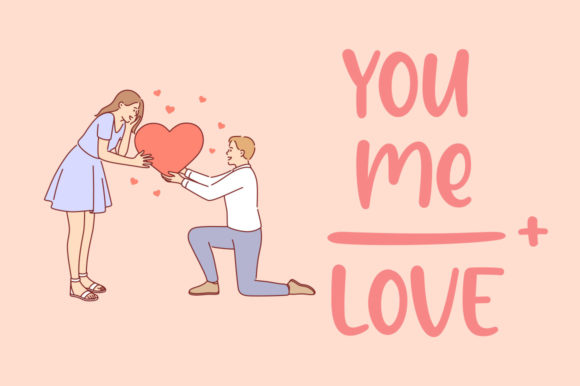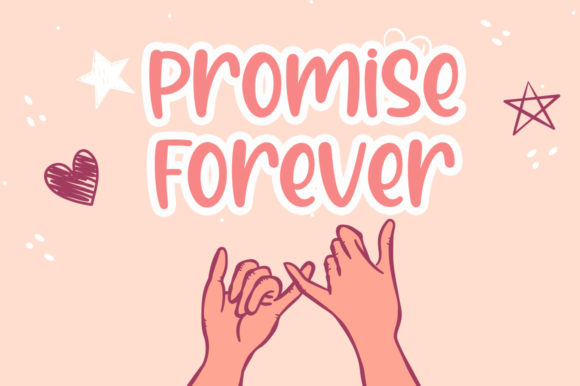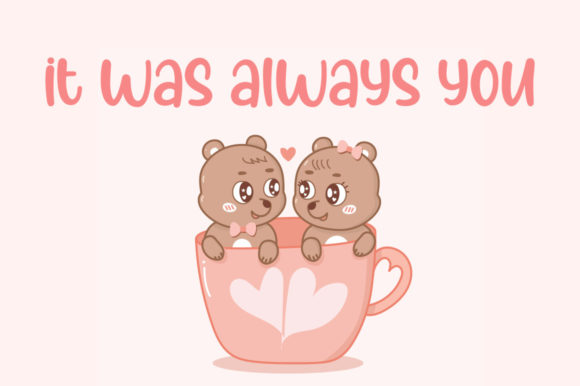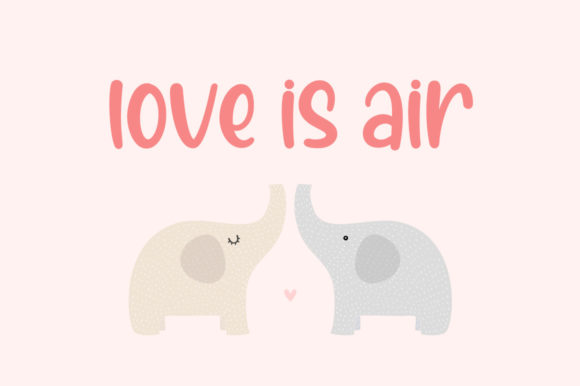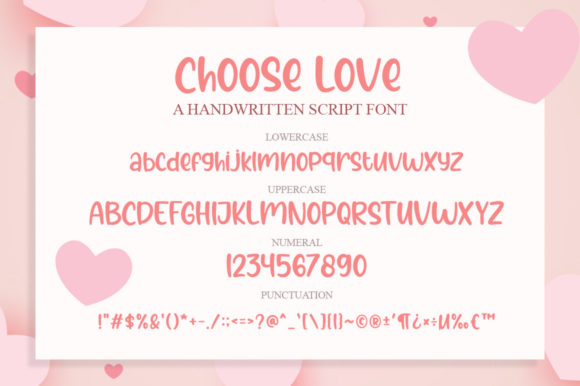
Introduction to Choose Love Font
Choose Love is a delicate and simple-lettered display font, perfect for all the chalkboard quotes and teaching materials you wish to create.
Its authentic look will add a personal and realistic feel to your designs .
Key Features of Choose Love Font